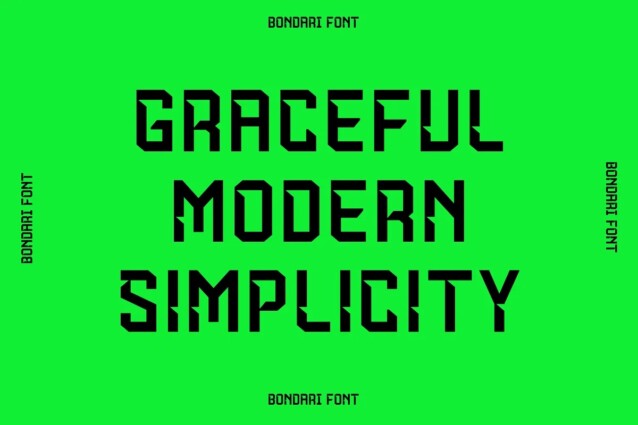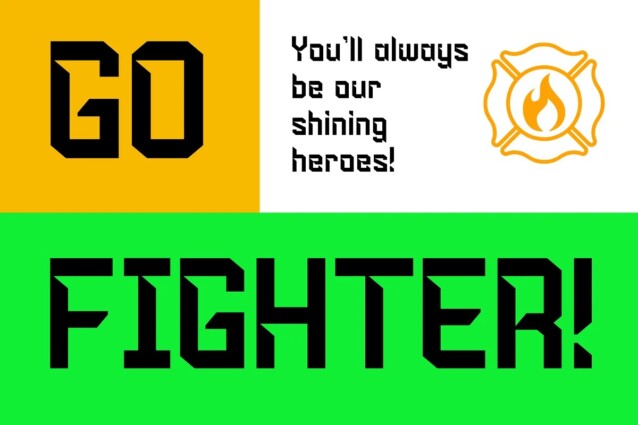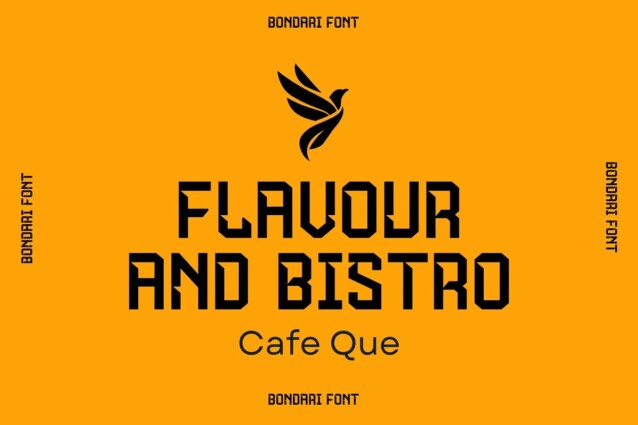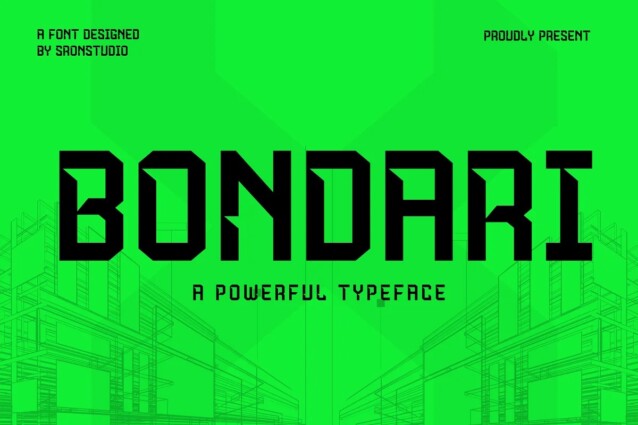
Bondari Font
Bondari Font is a modern display typeface with an amazing futuristic feel. With its robust letterforms and commanding design, it makes a striking statement in any project. Ideal for branding, headlines, or any design that requires a strong and impactful presence, “Bondari” exudes a sense of unwavering force and authority.